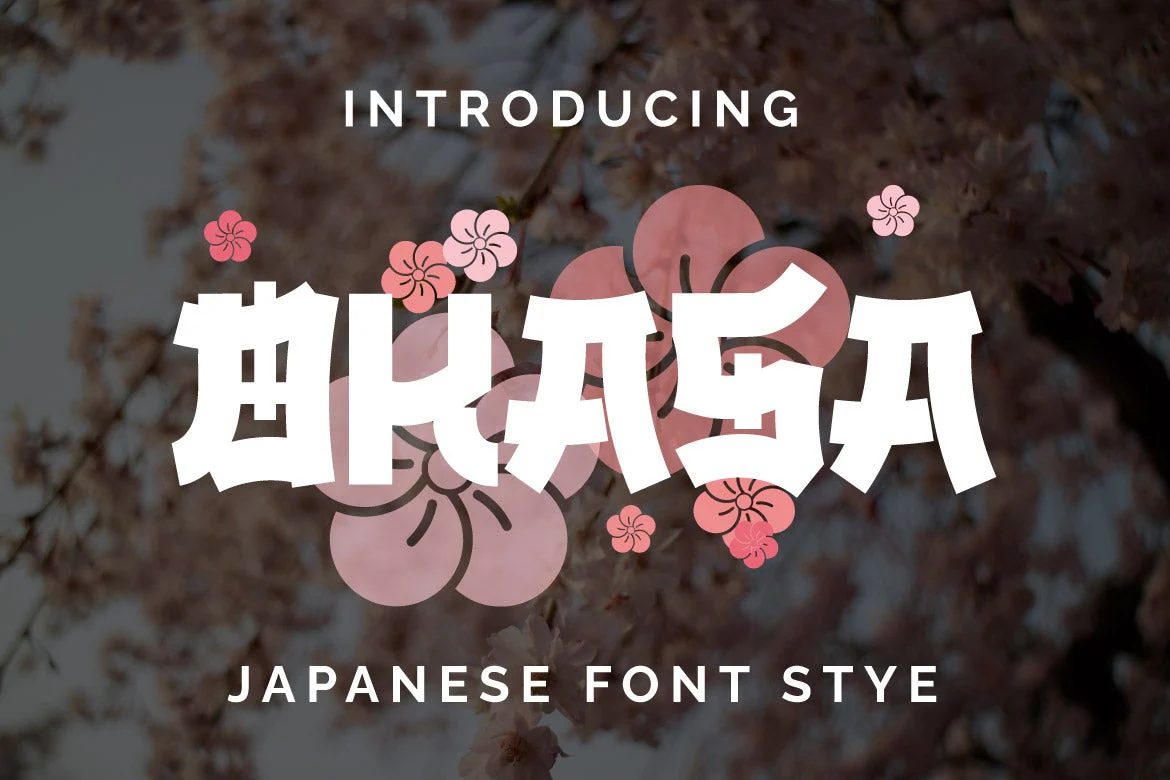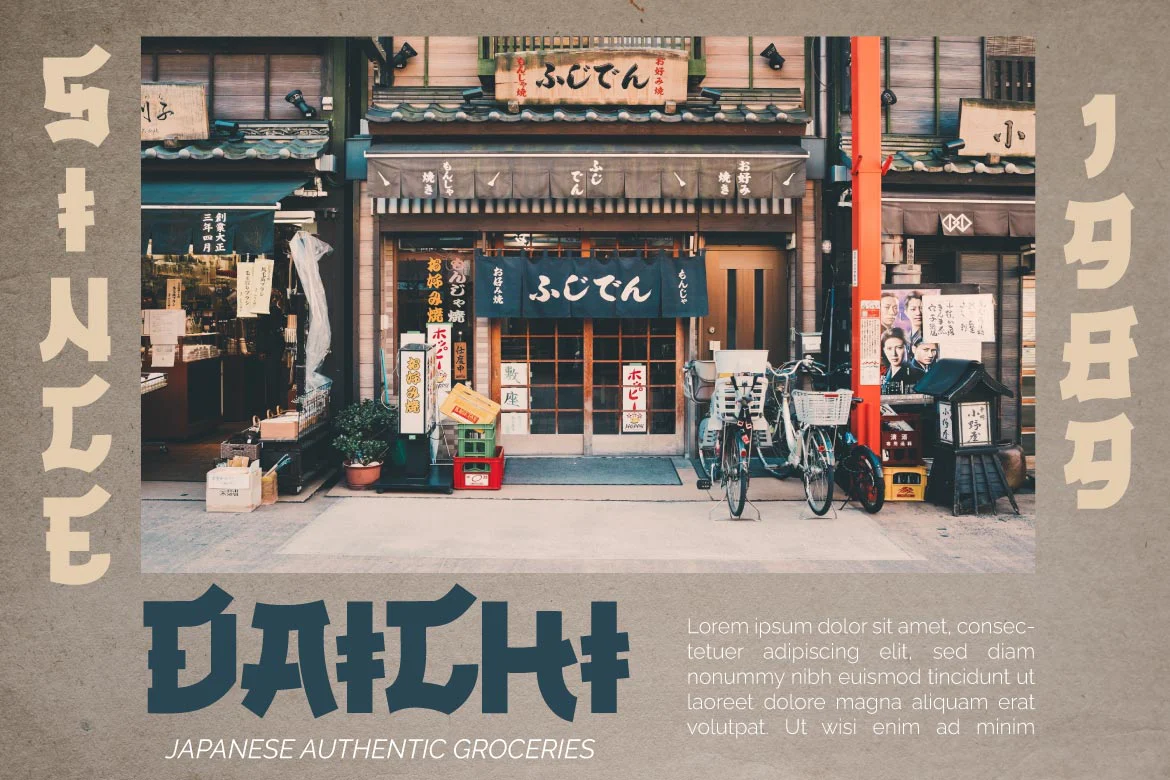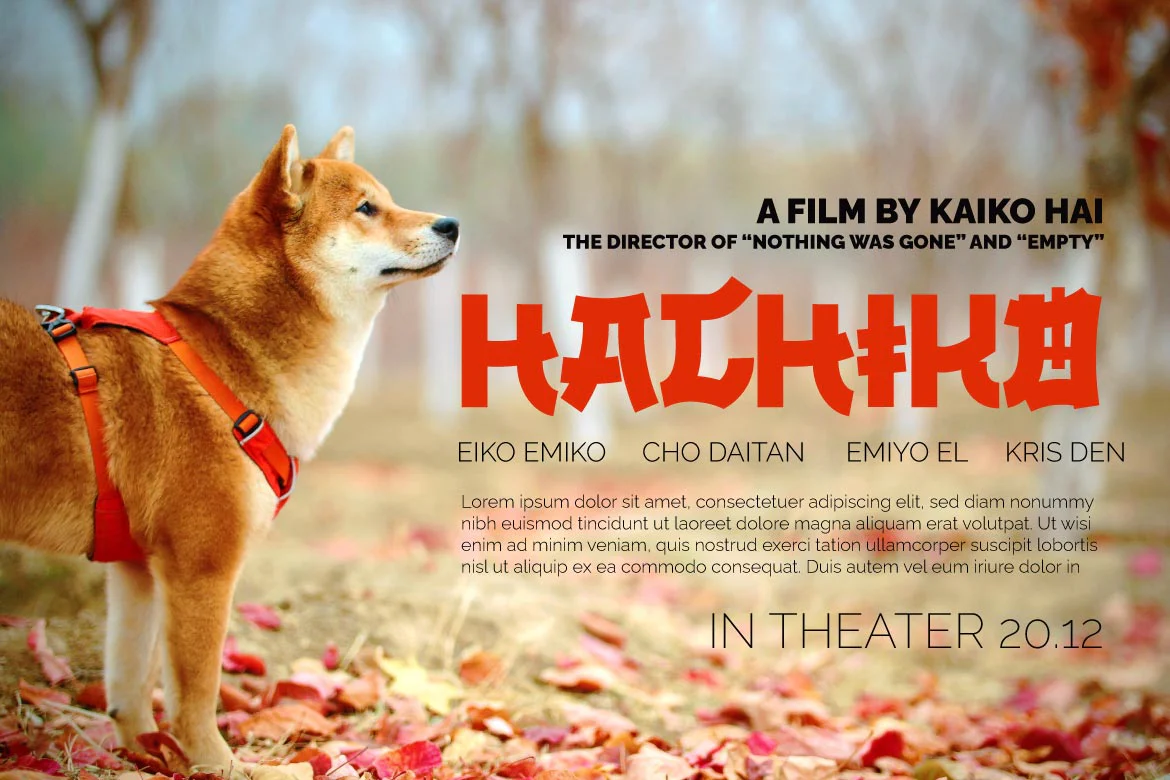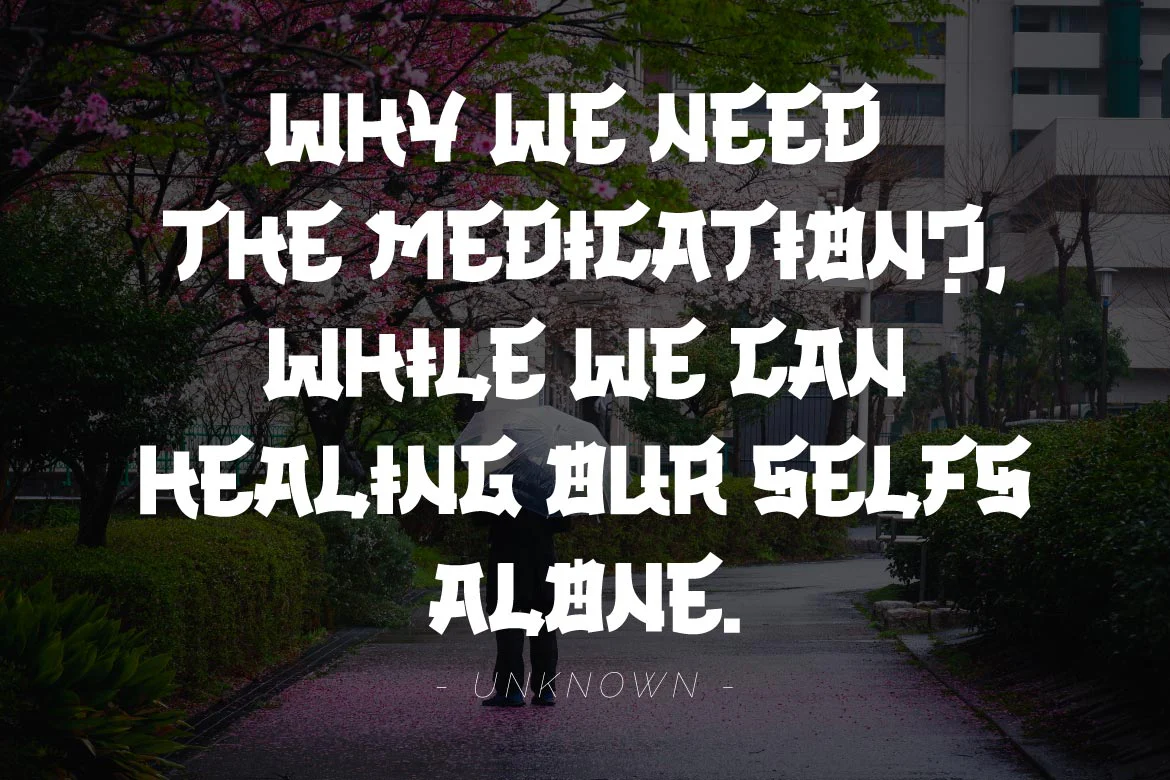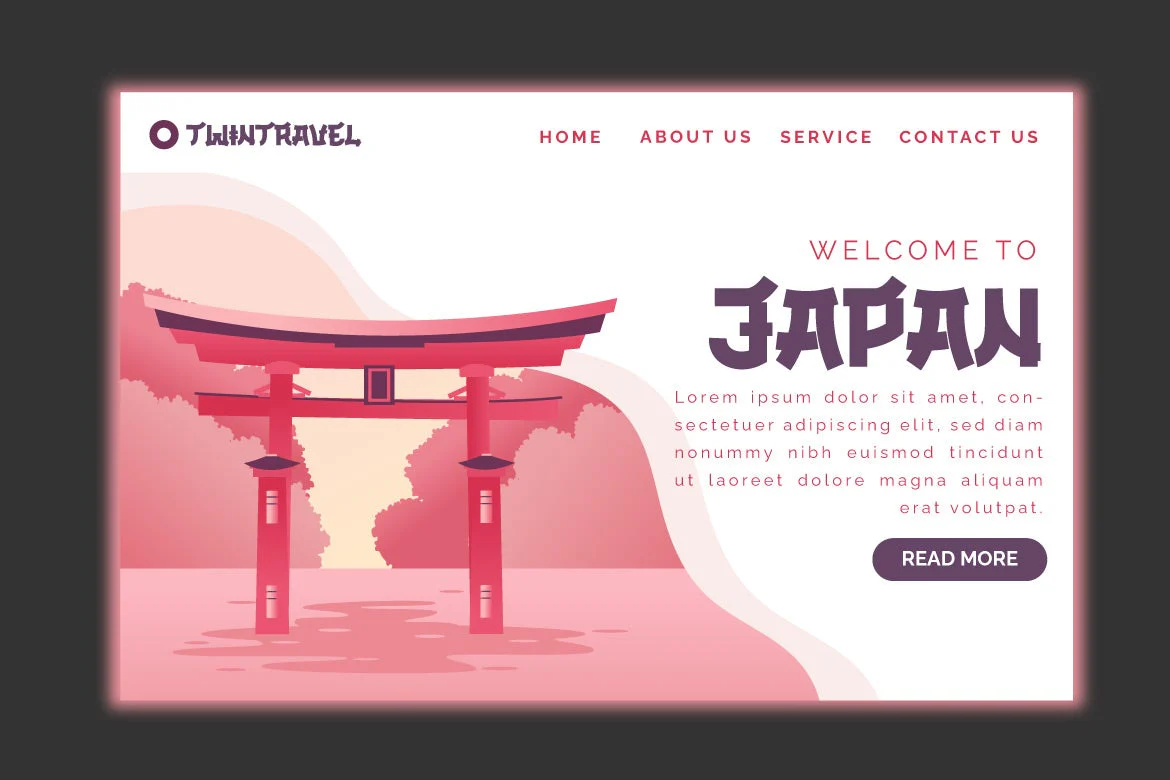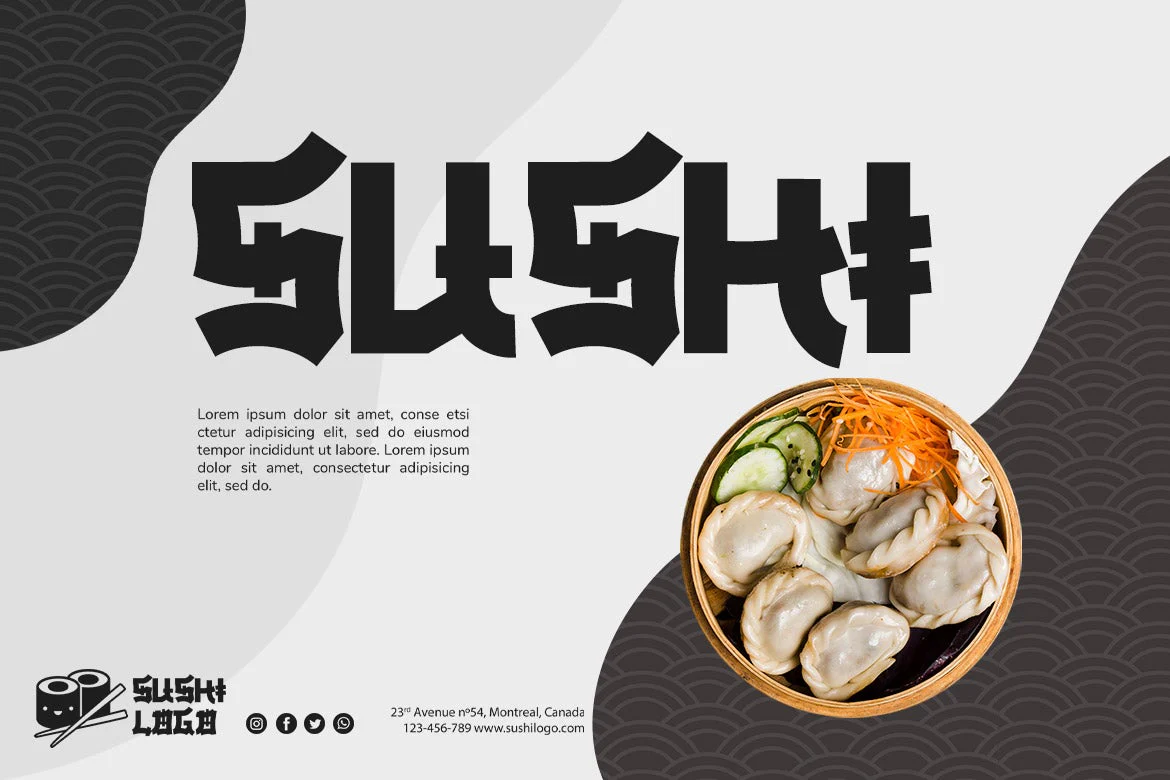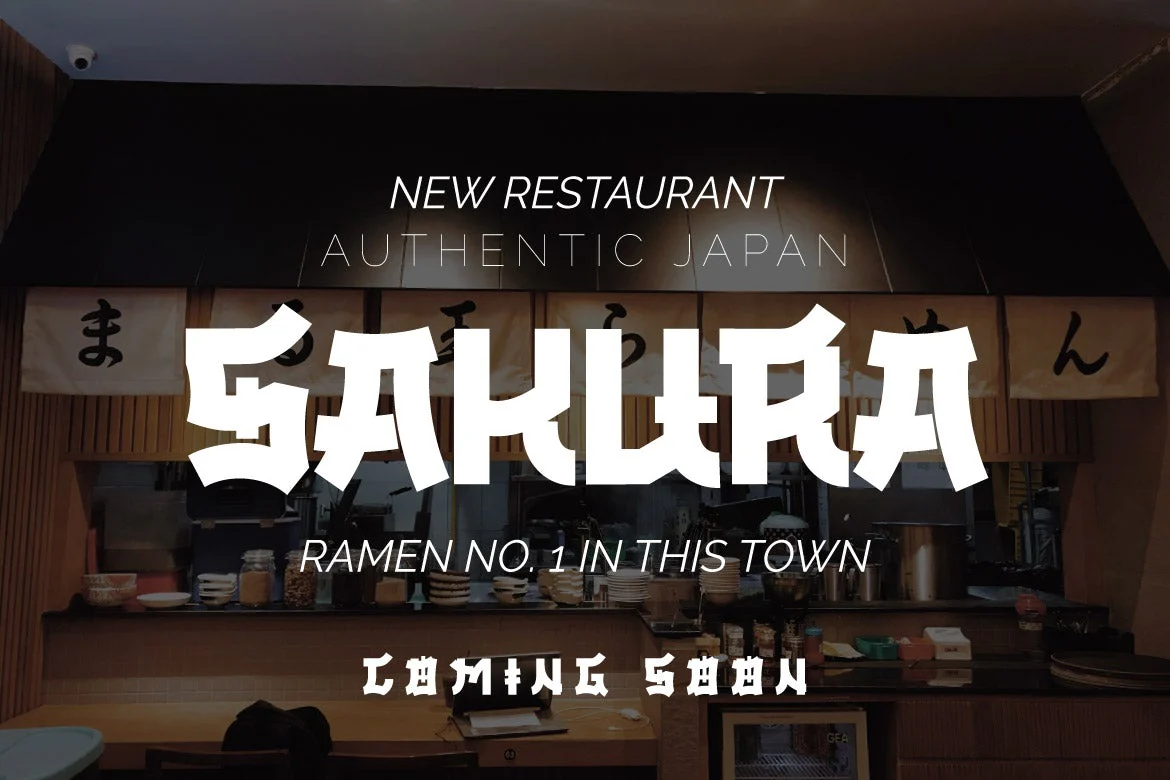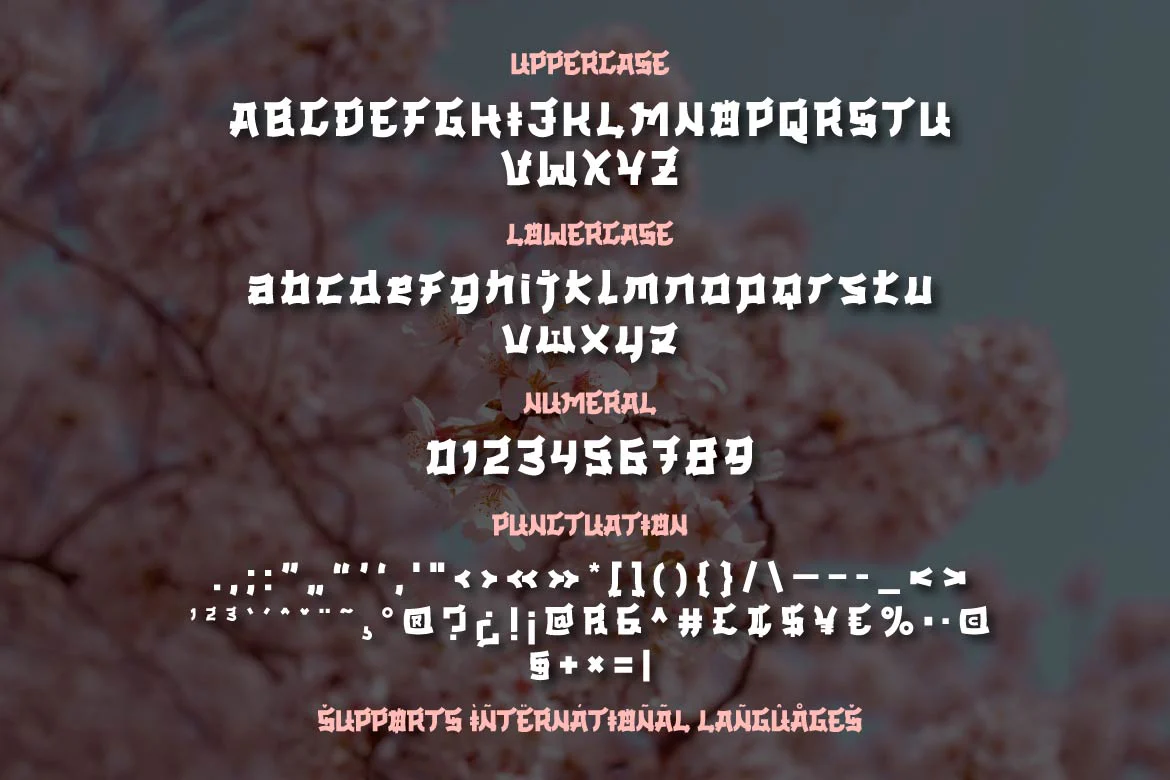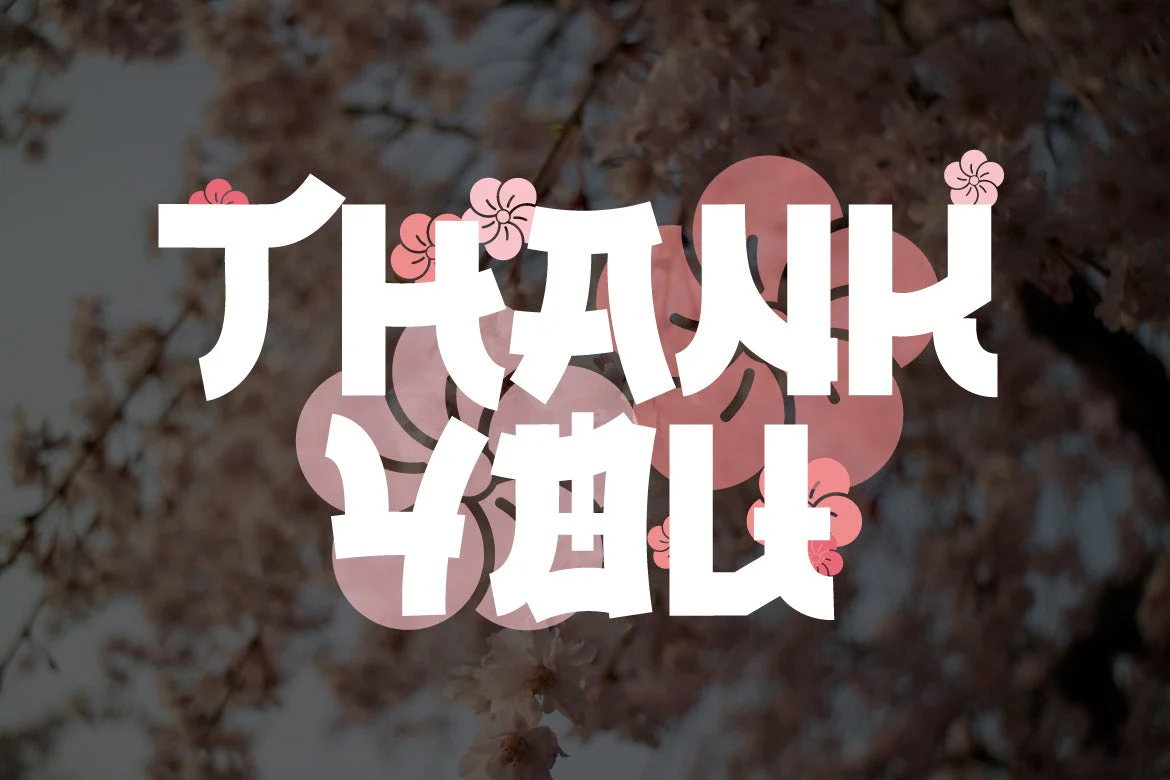
OKASA - Japanese style font
Okasa, our newest typeface, is now available.
We present to you a quirky and contemporary typeface, which you can use to produce an optimal visual display in each of your projects and to impress all of your audience with the unique look of your project.
Because everyone does not necessarily understand Japanese letters, we supply fonts with letters that can be utilized for your project. We produced this display font with a Japanese theme or an Asian font, which we designed to fulfill the needs of your Japanese-themed project. Of sure, your initiative will be understood by people all around the world.
Logotypes, food banners, branding, brochure, posters, movie titles, book titles, quotes, and more may all benefit from this font.
Of course, using this font in your various design projects will make them excellent and outstanding; many viewers are drawn to the striking and unusual graphic display.